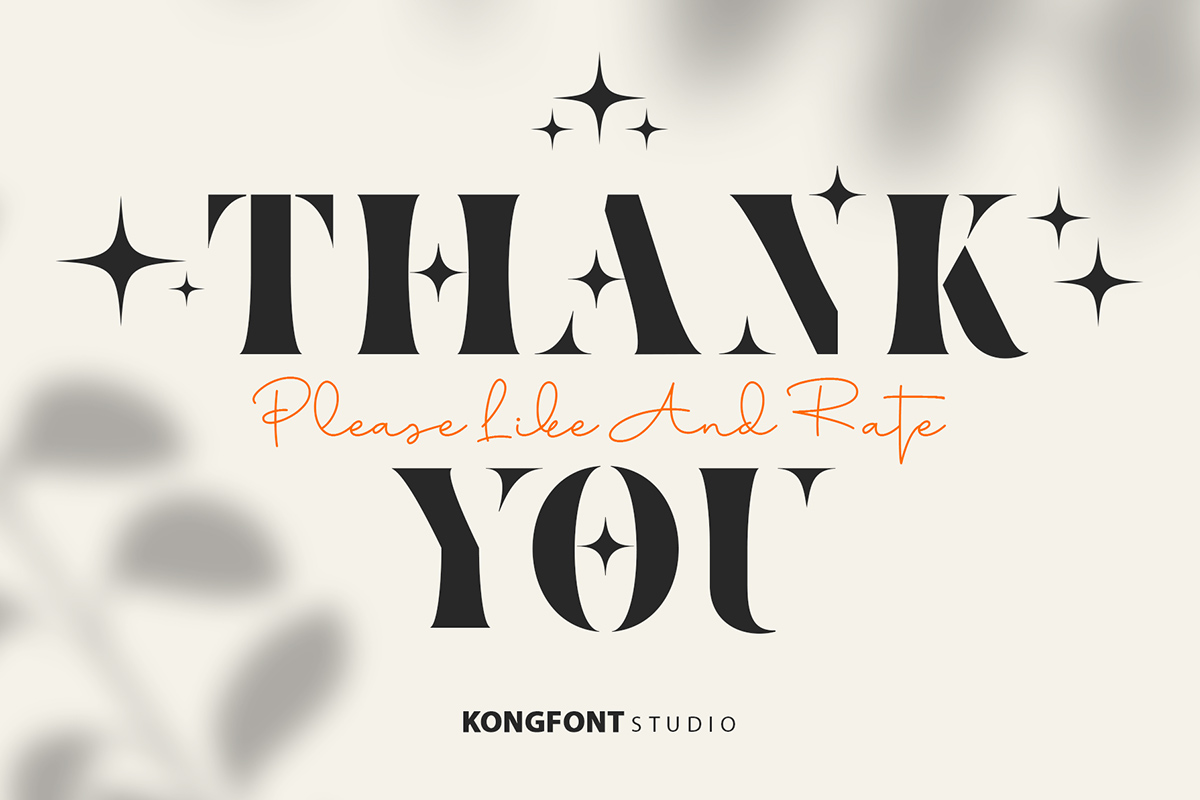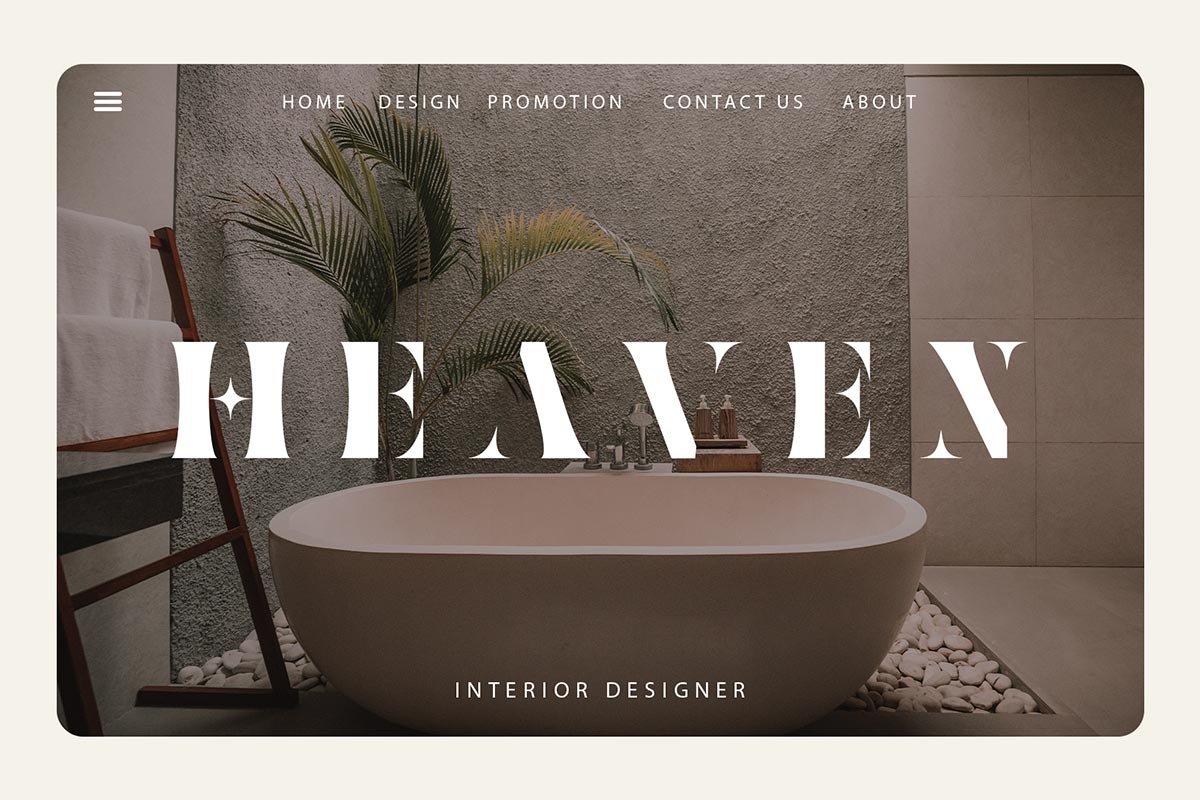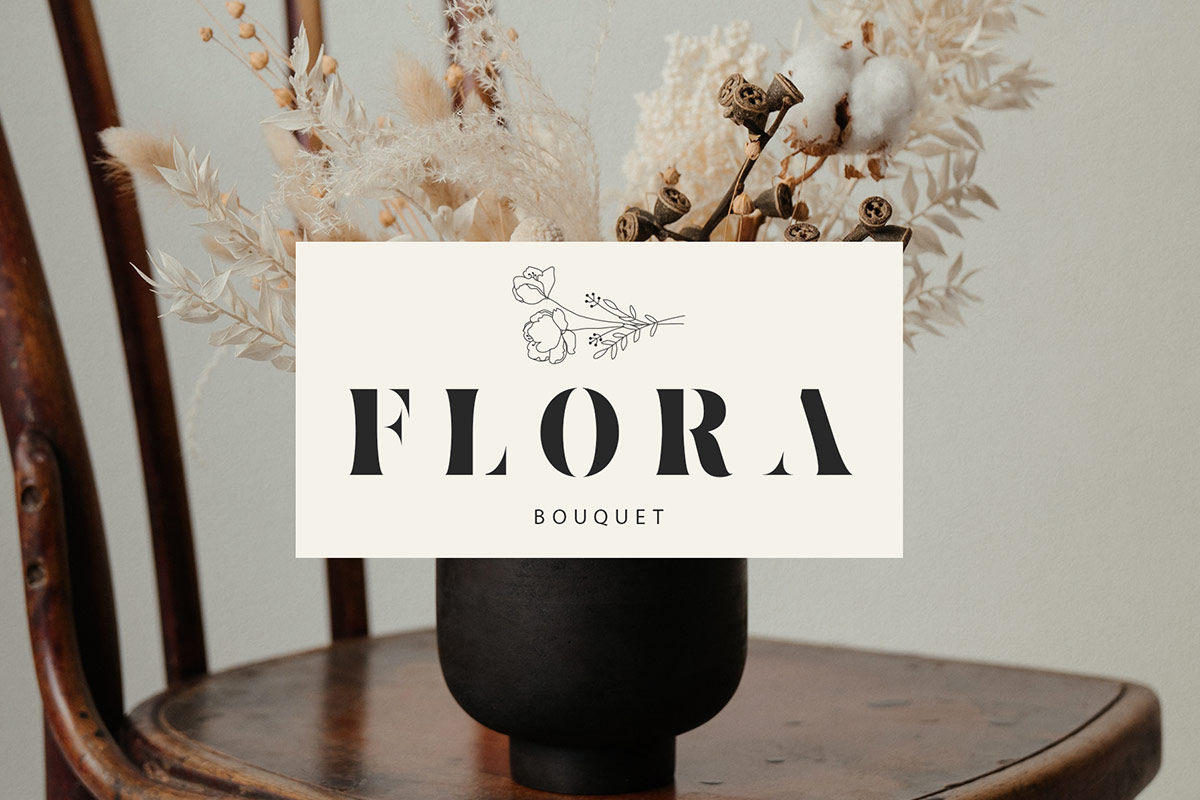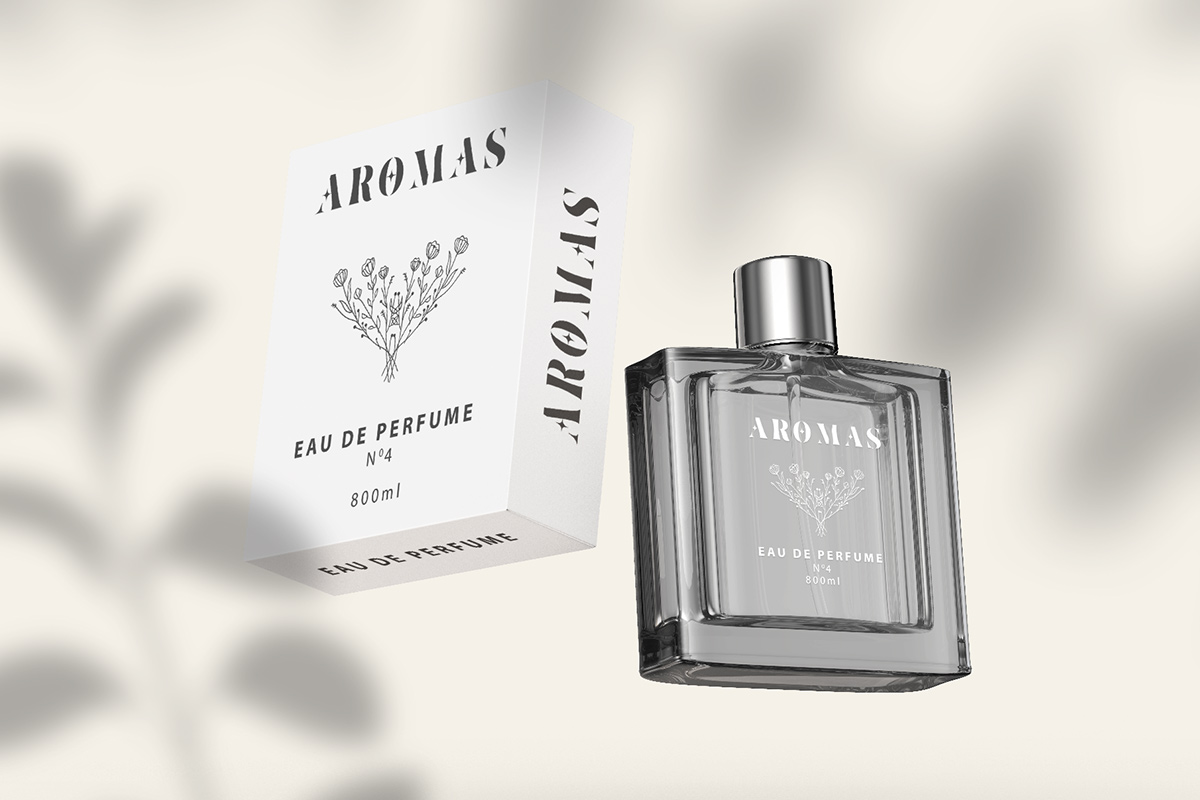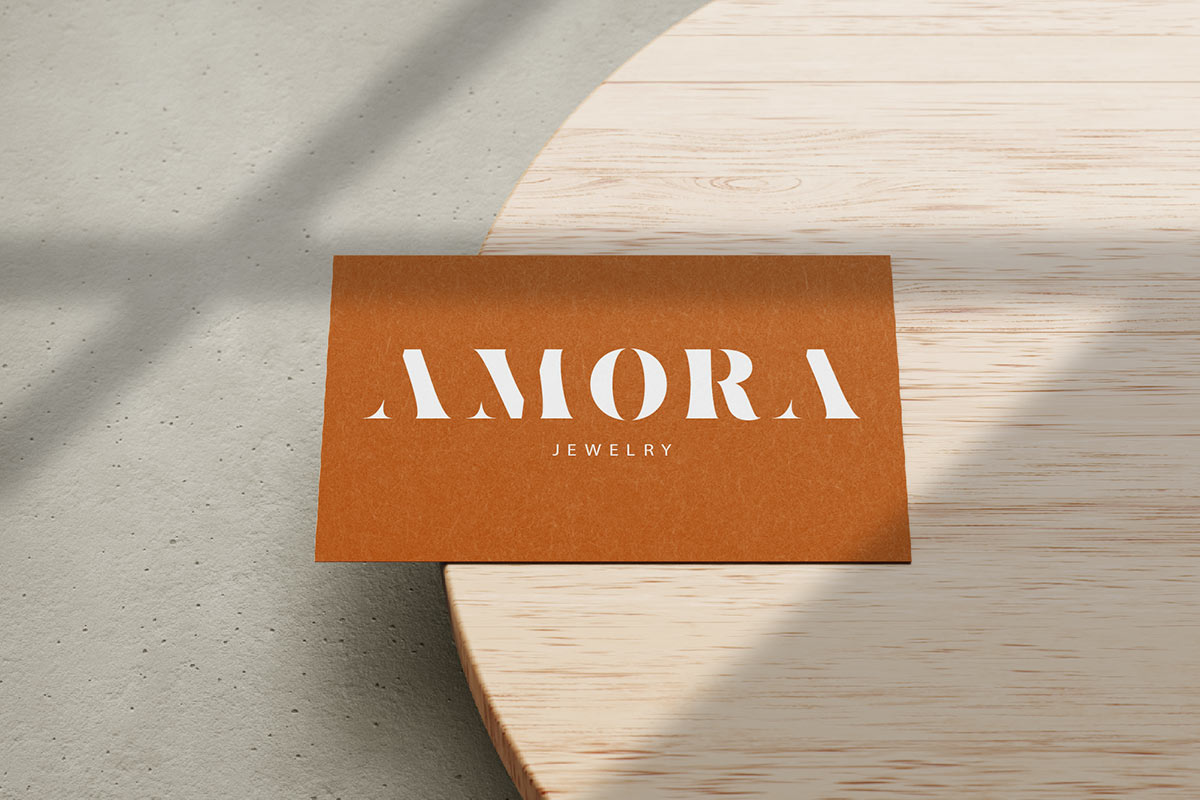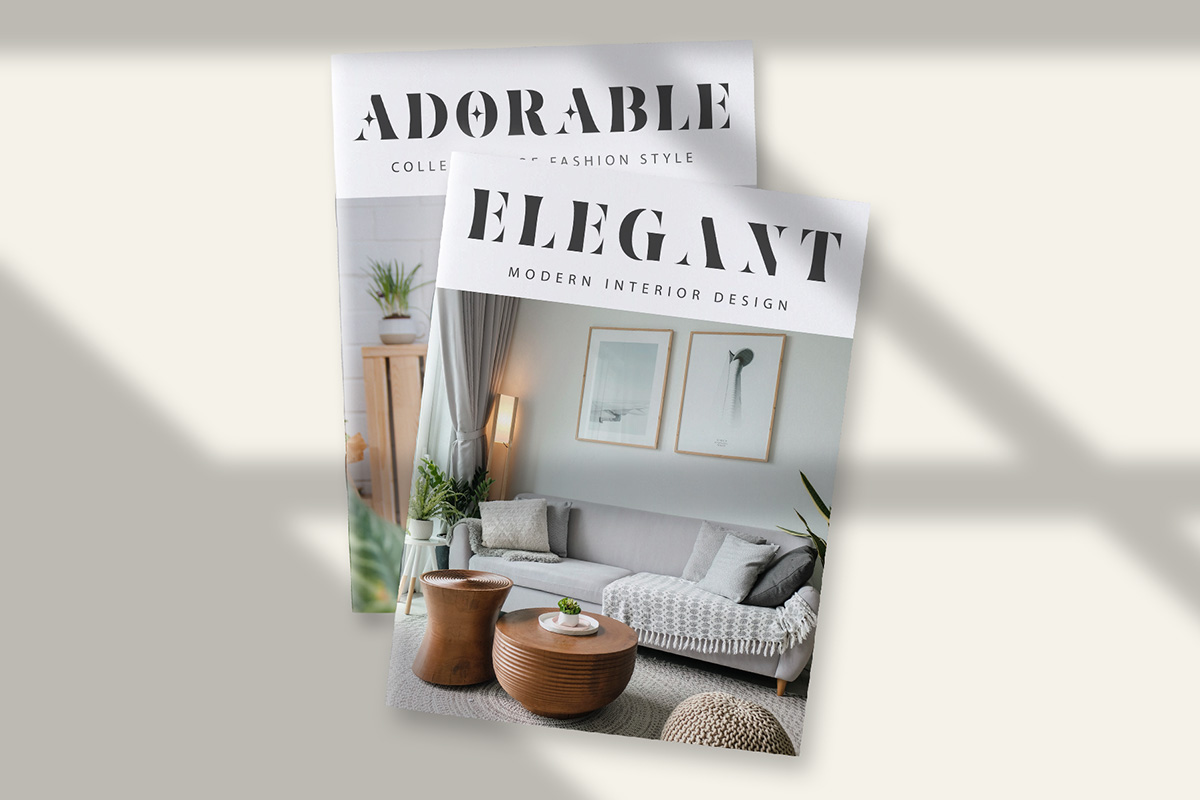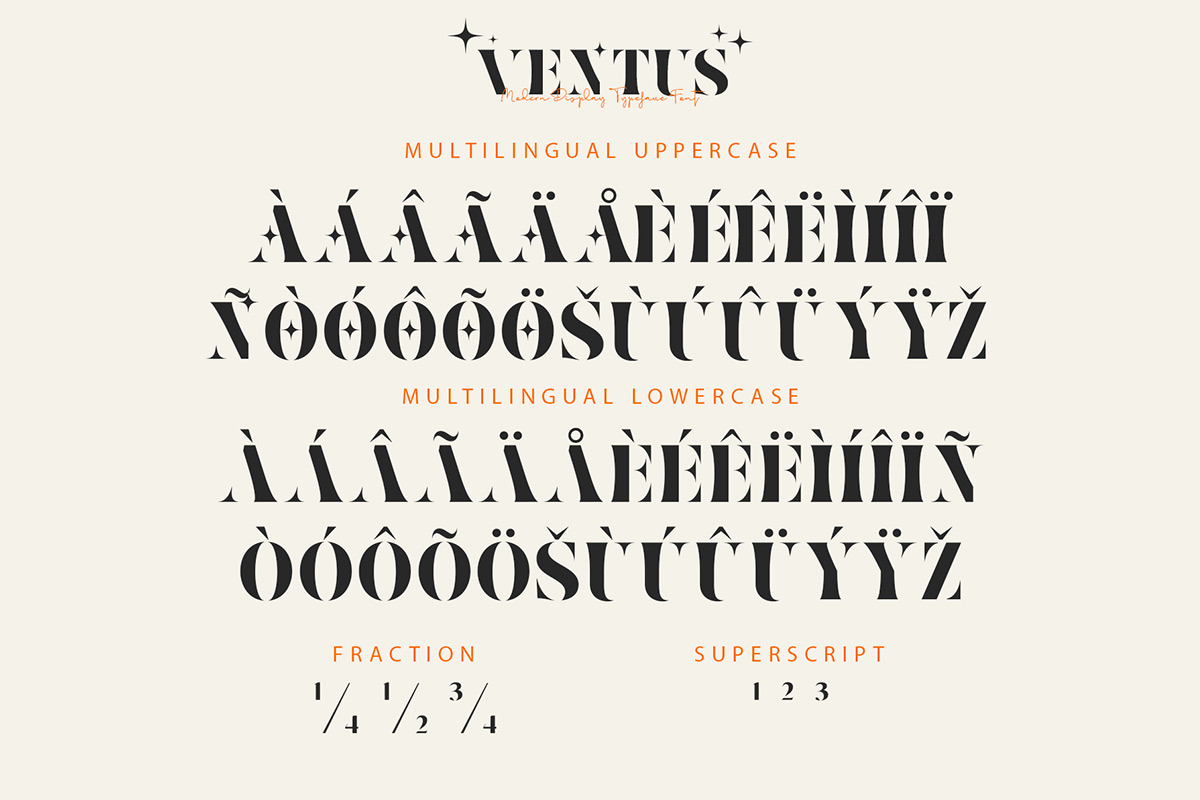
Ventus Font As the name suggests, Ventus Modern Display Font is a typeface that exudes beauty and is most elegant. Easy to read yet artistic, this font can serve multiple uses depending on the user. In the large and small text, this font is legible and reaching. Ventus Modern Display Font is a modern font and stylish font. This font was an arrangement to be an up-to-date serif-style typeface. Ventus Modern Display Font may use for product production, digitally and in promotions on the web and social media, as well as in printed forms such as magazines and posters. One product that can be combined with this font is fashion and beauty. Magazines that cover fashion and beauty topics can use the Ventus Modern Display Font as their cover. This font can also be used as a brand on the product packaging. This font can be applied in screen printing, both in small and large quantities. In modern business needs, Ventus Modern Display Font is also suitable for personal name cards and business signage indicating a place, such as cafes, boutiques, and makeup shops. Ventus Modern Display Font is one of the best fonts to use for wedding fonts and similar formal events. It can be applied to invitation cards and event banners. Our Display fonts collection is compatible for use as; Figma fonts, Canva fonts, Freepik Fonts, and Adobe Fonts. They also work as Windows Fonts and Apple Fonts. For your social media needs, you can use and install fonts in our collection of serif fonts to use as Instagram Fonts, Facebook Fonts, and Twitter Fonts.